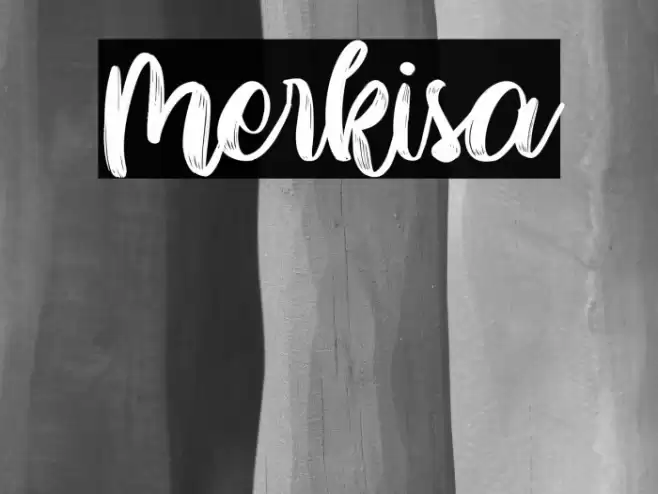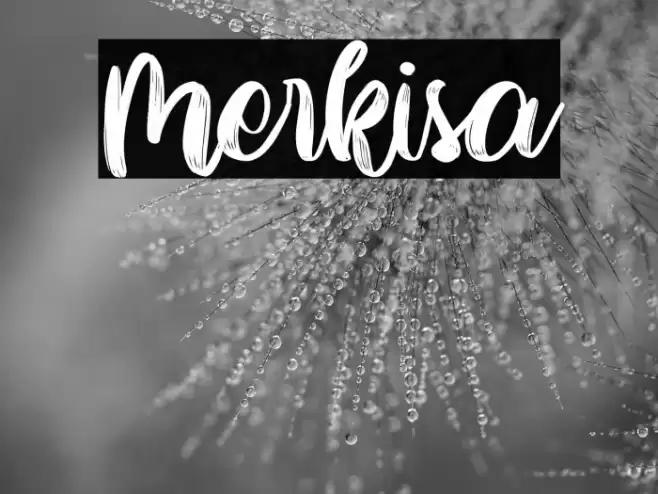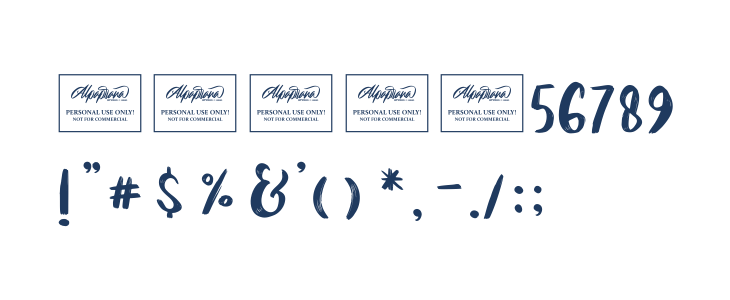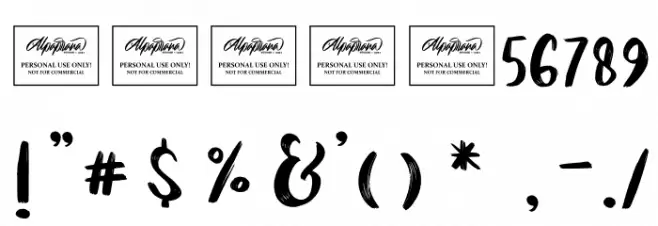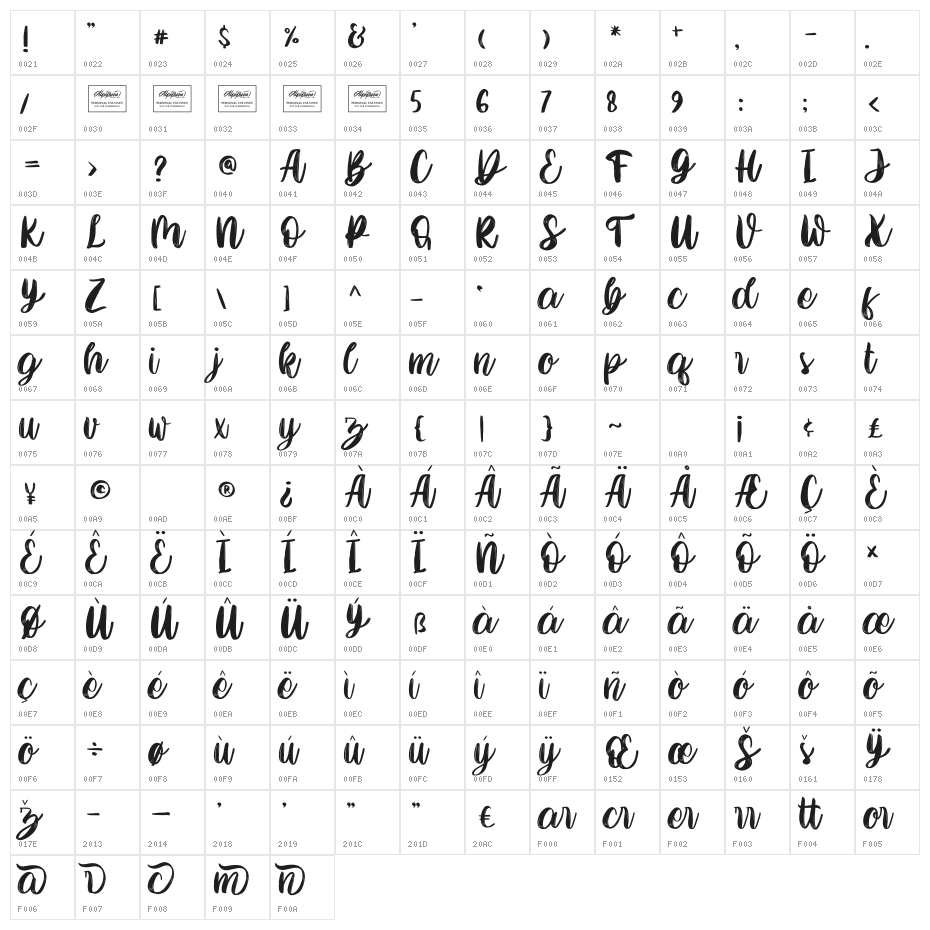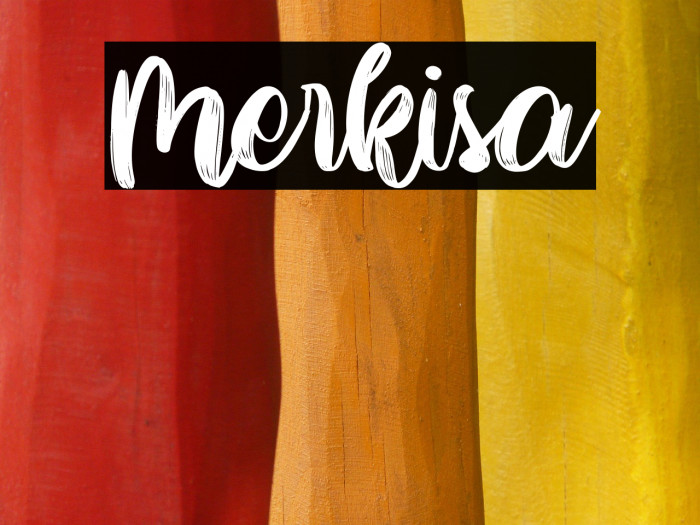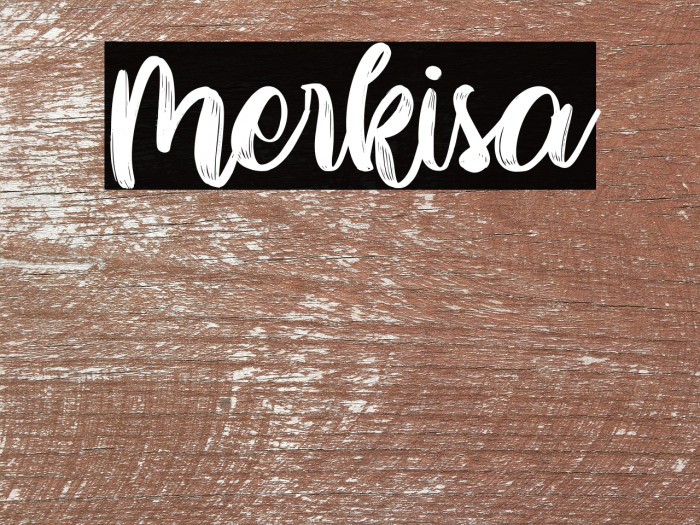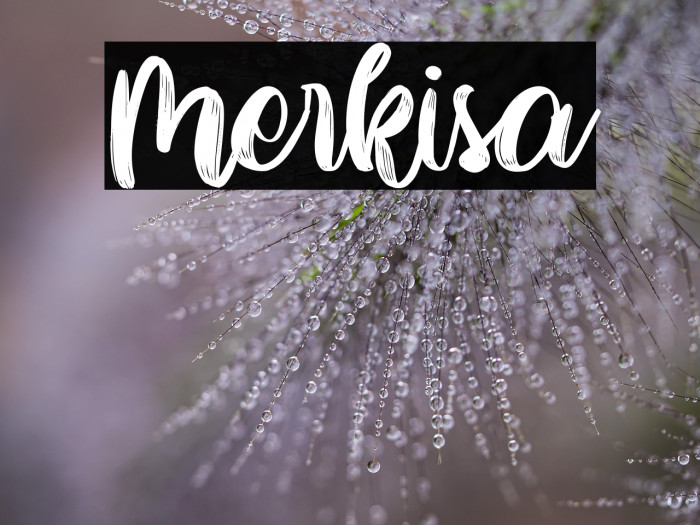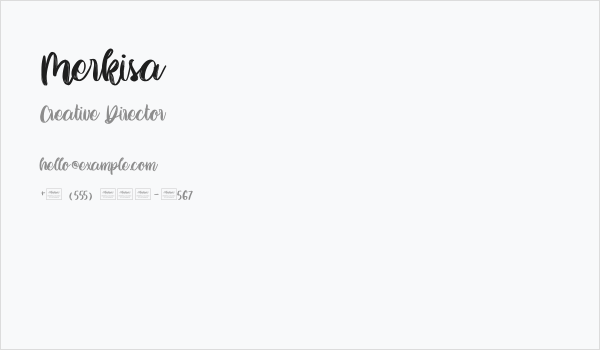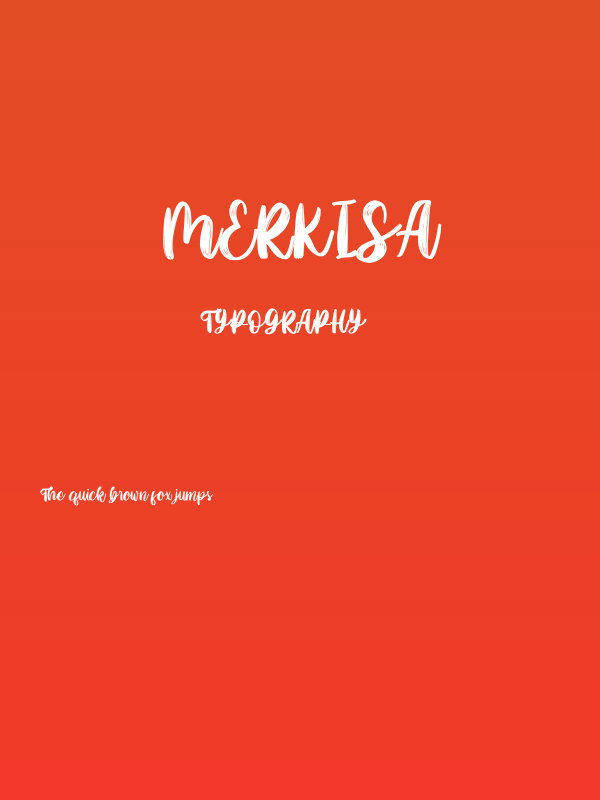
Merkisa Font
Merkisa Description
This font features a bold, expressive script style with a hand-painted appearance. The letters are characterized by thick, sweeping strokes and a dynamic flow, giving it a lively and artistic feel. The uppercase and lowercase letters maintain a consistent style, with some letters featuring unique flourishes and loops. The numbers and special characters are designed to match the overall aesthetic, ensuring a cohesive look across all text elements. This font is ideal for projects that require a personal, handcrafted touch, such as invitations, branding, and artistic designs.
A bold, expressive script font with a hand-painted, artistic style from Regular fonts.
- Font: Merkisa
- Proposed Projects: Ideal for invitations, branding, artistic designs, and any project requiring a personal touch.
- Use Case: Logos, Headlines, Artistic designs